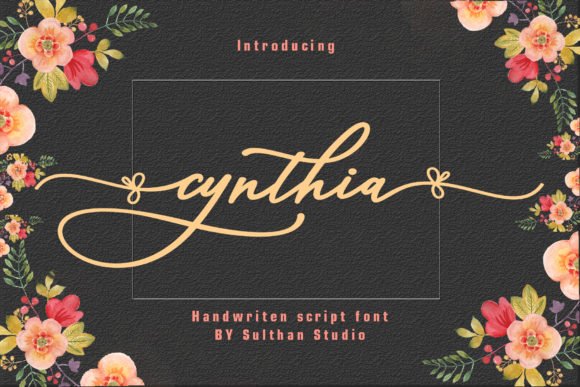
The Perfect Script for Your Next Crafting Project
Have you ever stumbled upon a font that makes your heart skip a beat? For me, that moment happened when I discovered the Cynthia Script Font. I was working on a handmade card for my best friend’s birthday, and I needed the perfect font to match the whimsical design. As I browsed through my font library, I landed on Cynthia Script Font, and I knew I had found the one.
Cynthia Script Font is a charming and romantic script that’s specifically designed for crafting projects. Its elegant and flowing lines make it an ideal choice for adding a touch of personality to your handmade creations. Whether you’re a seasoned crafter or a DIY enthusiast, Cynthia Script Font is a valuable asset for any designer looking to add a personal touch to their projects.
With its versatility and charm, Cynthia Script Font is a must-have for anyone who loves crafting and design. In this article, we’ll dive deeper into the world of Cynthia Script Font and explore its features, uses, and benefits for designers.
Cynthia Script Font Key Features
- Unique Characteristics: Cynthia Script Font features a beautiful, handwritten style with subtle flair and elegance, making it perfect for creative and artistic projects.
- Language Support: The font supports a wide range of languages, including Latin, Cyrillic, and Greek alphabets, making it a versatile choice for global designs.
- Kerning and Ligatures: The font includes advanced kerning and ligature pairs, ensuring smooth and natural-looking text rendering.
Cynthia Script Font Review
Overall, I was excited to dive into the Cynthia Script Font and see what it had to offer. Here’s my honest take:
- The font’s elegance and sophistication make it perfect for high-end branding, weddings, and other special occasions.
- Its unique, handwritten feel adds a touch of personality and whimsy to any design project.
- The font’s versatility makes it suitable for a wide range of applications, from headings to body text.
- The font can be quite busy, which may make it difficult to read in large blocks of text.
- Some letters may be difficult to distinguish from one another, particularly in smaller sizes.
- The font may not be the best choice for digital use, as it can be difficult to read on screens.
The Cynthia Script Font is a beautiful, elegant font that’s perfect for special occasions and high-end branding. While it may have some limitations, its unique feel and versatility make it a great addition to any designer’s toolkit. With careful use and consideration, I think this font has a lot of potential.
The Cynthia Script Font is ideal for creating elegant and sophisticated designs, such as:
– Luxury branding and packaging
– High-end digital graphics and illustrations
– Personalized gift cards and certificates